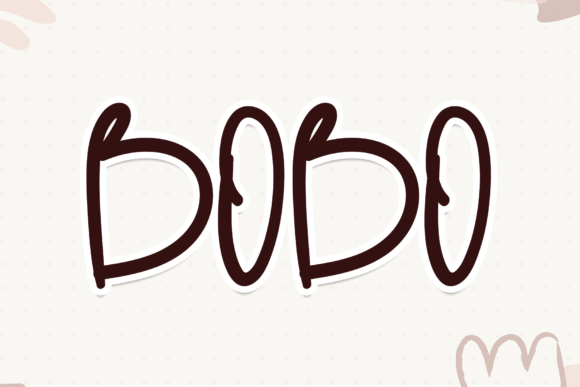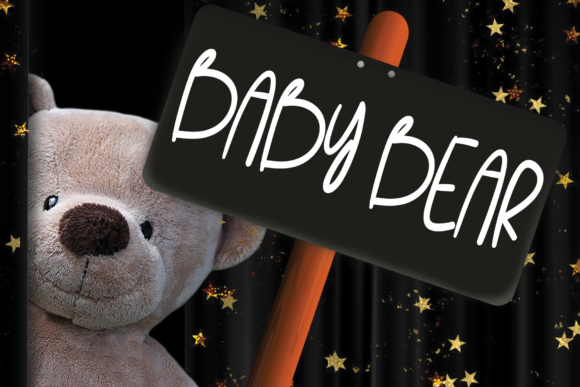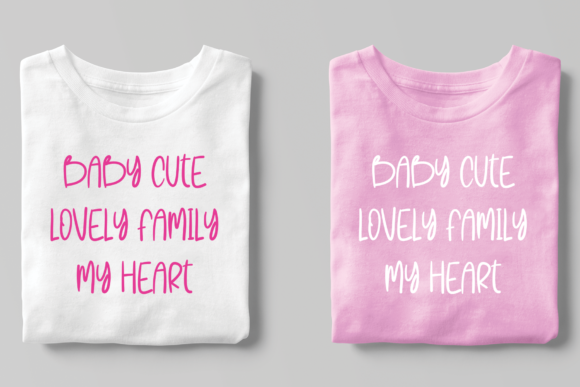
About Bobo Font
Bobo is a cute and simple lettered handwritten font that can be used for all chalkboard quotes or teaching material! Its authentic look will add a personal and realistic feel to your designs.